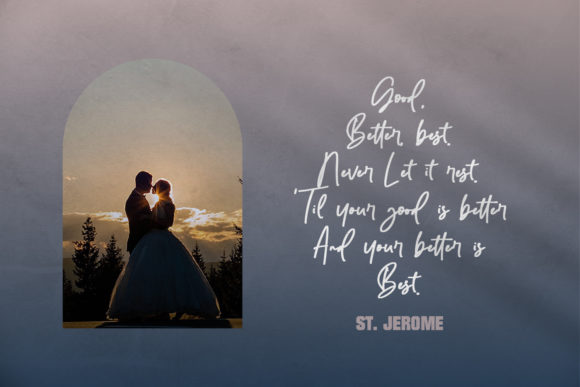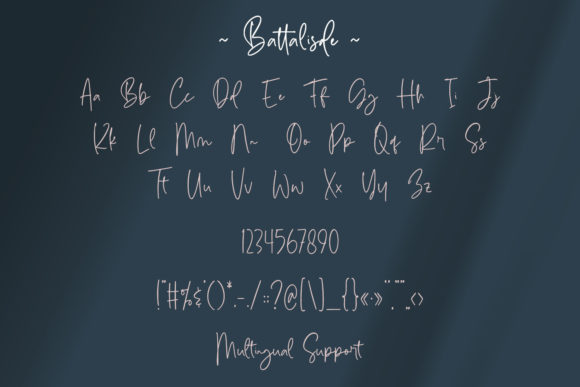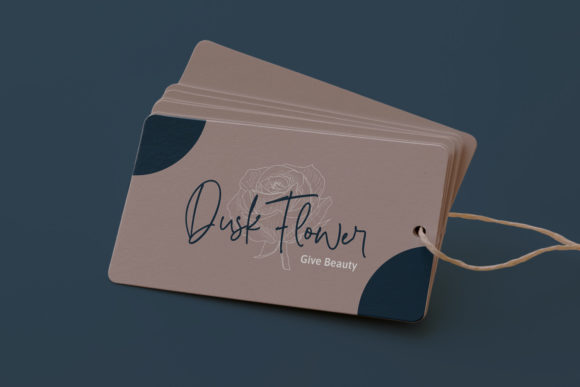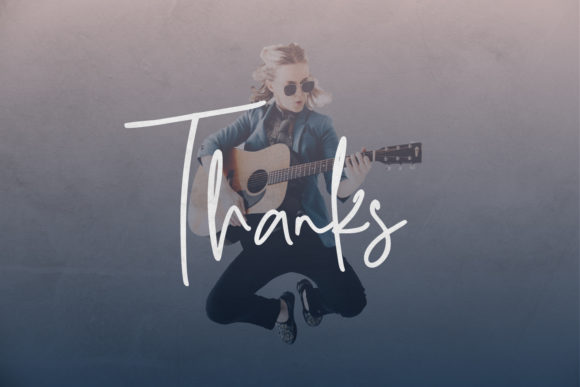
Battalisde Font: A Charming Script Font to Elevate Your Designs
Battalisde is a lovely script font that has been making waves in the design community with its charming, playful characters that seem to dance along the baseline. This delightful font is perfect for designers and crafters looking to add a touch of whimsy and personality to their creative projects. In this article, we’ll dive into the world of Battalisde font, exploring its features, uses, and benefits, as well as provide tips on how to make the most of this beautiful font.
What is Battalisde Font?
Battalisde is a script font that boasts a unique and captivating charm. Its characters are designed to be playful and elegant, with a sense of movement and fluidity that makes them seem to dance along the baseline. This font is perfect for adding a touch of personality to your designs, whether you’re working on a branding project, creating social media graphics, or crafting invitations and greeting cards.
Key Features of Battalisde Font
- Charming and Playful Characters: Battalisde font features characters that are not only beautiful but also playful and charming. Each letter is designed to be unique and eye-catching, making your designs stand out from the crowd.
- Script Style: Battalisde is a script font that mimics handwriting, giving your designs a personal and human touch. This font is perfect for creating a sense of warmth and approachability in your designs.
- Baseline Dancing: One of the standout features of Battalisde font is its baseline dancing effect. The characters seem to dance along the baseline, creating a sense of movement and energy in your designs.
- High-Quality Design: Battalisde font is designed with high-quality and precision, ensuring that it looks great in any size or format.
Uses of Battalisde Font
Battalisde font is versatile and can be used in a variety of design projects, including:
- Branding and Logo Design: Use Battalisde font to create a unique and memorable logo that reflects your brand’s personality.
- Social Media Graphics: Add a touch of whimsy and personality to your social media graphics, including Facebook posts, Instagram stories, and Twitter headers.
- Invitations and Greeting Cards: Create beautiful and eye-catching invitations and greeting cards that will make your recipients feel special.
- Packaging Design: Use Battalisde font to add a personal touch to your product packaging and make it stand out on store shelves.
Benefits of Using Battalisde Font
- Unique and Eye-Catching: Battalisde font is designed to be unique and eye-catching, making your designs stand out from the crowd.
- Easy to Read: Despite its playful nature, Battalisde font is easy to read, making it perfect for body text and headlines.
- Versatile: Battalisde font can be used in a variety of design projects, from branding and logo design to social media graphics and packaging design.
- High-Quality: Battalisde font is designed with high-quality and precision, ensuring that it looks great in any size or format.
Tips for Using Battalisde Font
- Pair with Other Fonts: Experiment with pairing Battalisde font with other fonts to create a unique and eye-catching combination.
- Use in Moderation: While Battalisde font is beautiful, it’s best to use it in moderation. Use it for headlines or titles, and pair it with a simpler font for body text.
- Experiment with Colors: Battalisde font looks great in a variety of colors, so don’t be afraid to experiment and find the perfect hue for your design.
Battalisde font is a charming and playful script font that is perfect for designers and crafters looking to add a touch of whimsy and personality to their creative projects. With its unique and eye-catching characters, baseline dancing effect, and high-quality design, Battalisde font is sure to elevate your designs and make them stand out from the crowd. Whether you’re working on a branding project, creating social media graphics, or crafting invitations and greeting cards, Battalisde font is a great choice.